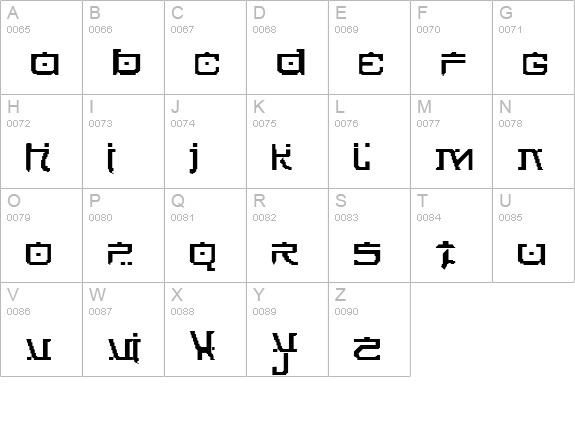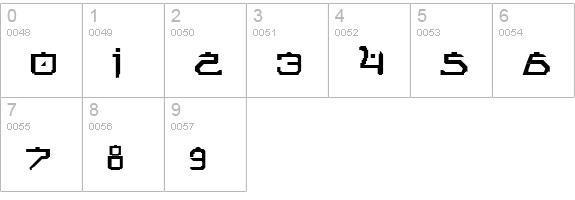
FUTURE_NEWS Font Details
Introducing FUTURE_NEWS font, a sleek and modern typeface designed for futuristic designs and cutting-edge projects. With its clean lines and bold presence, FUTURE_NEWS exudes a sense of innovation and forward-thinking style. This versatile font is perfect for headlines, posters, branding, and more. What sets FUTURE_NEWS apart is not just its striking aesthetics, but also its accessibility. Unlike many premium fonts, FUTURE_NEWS is completely free to download at FontsMarket.com. This means that designers, creatives, and enthusiasts alike can easily access this dynamic font without any cost barriers. Embrace the future of design with FUTURE_NEWS font, where creativity knows no bounds. Download it today and take your projects to the next level!